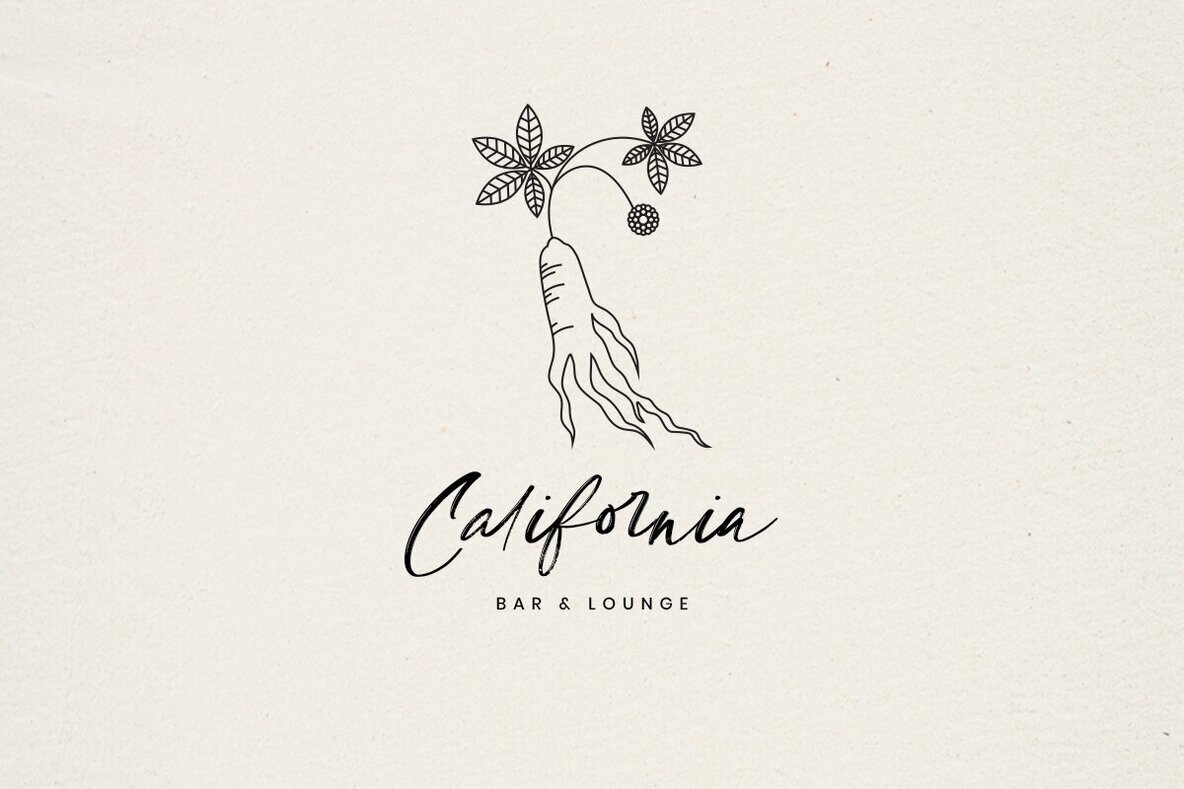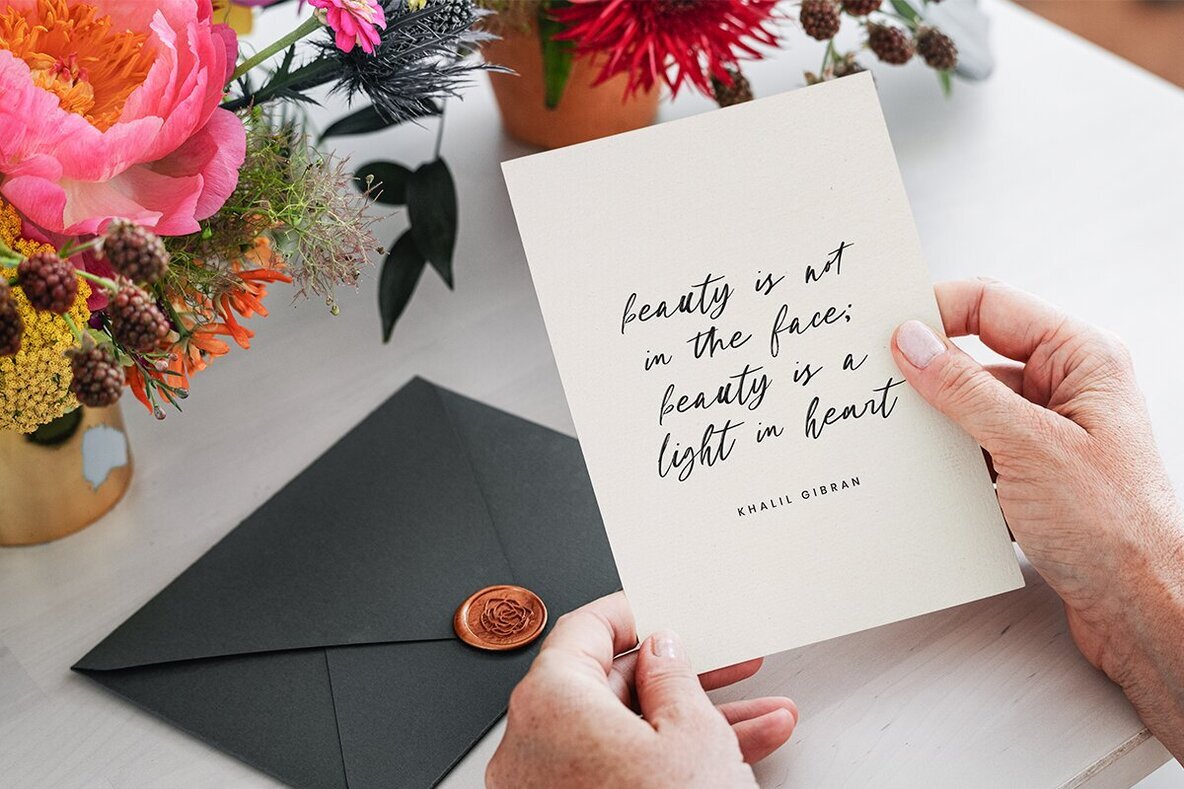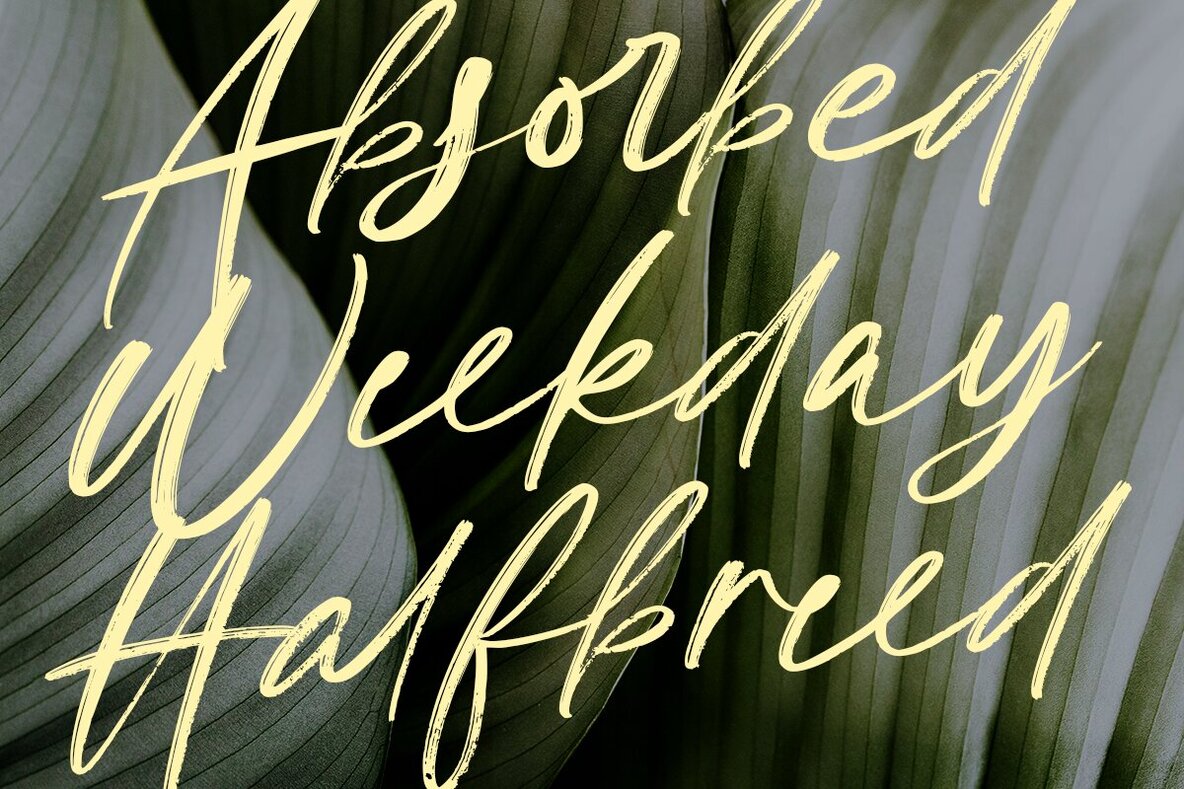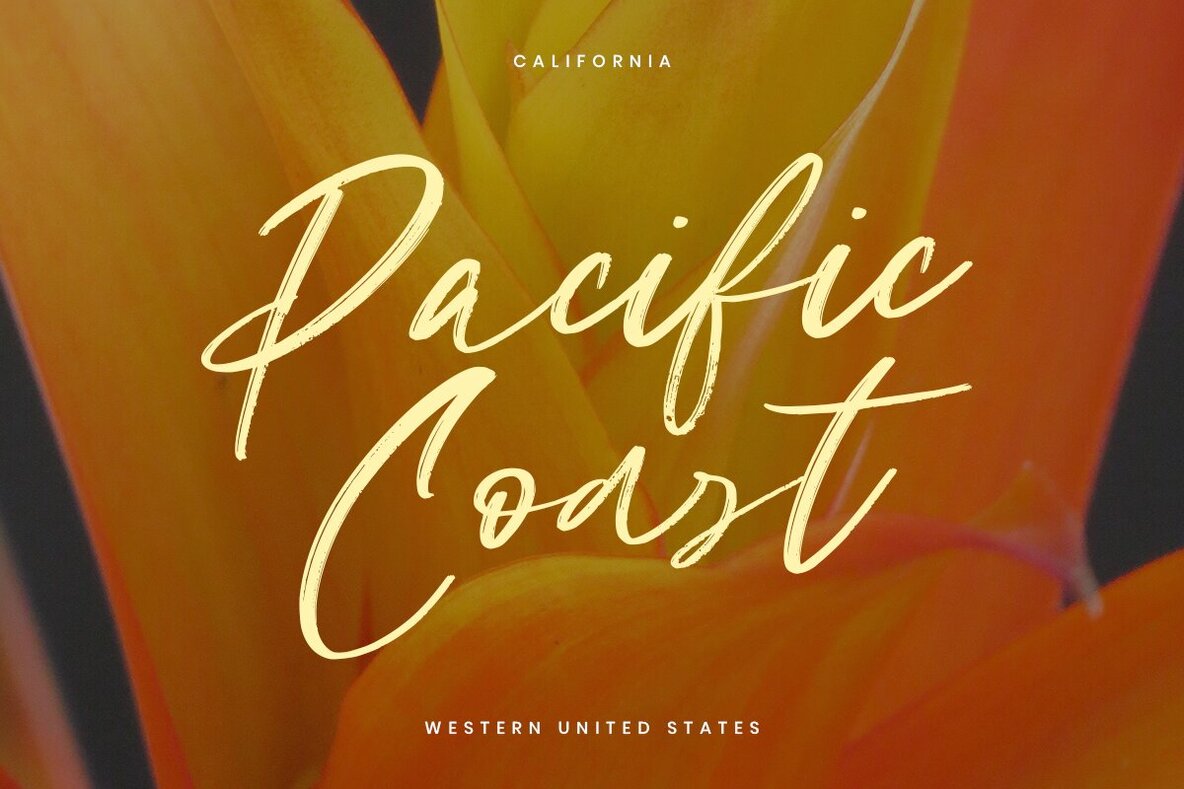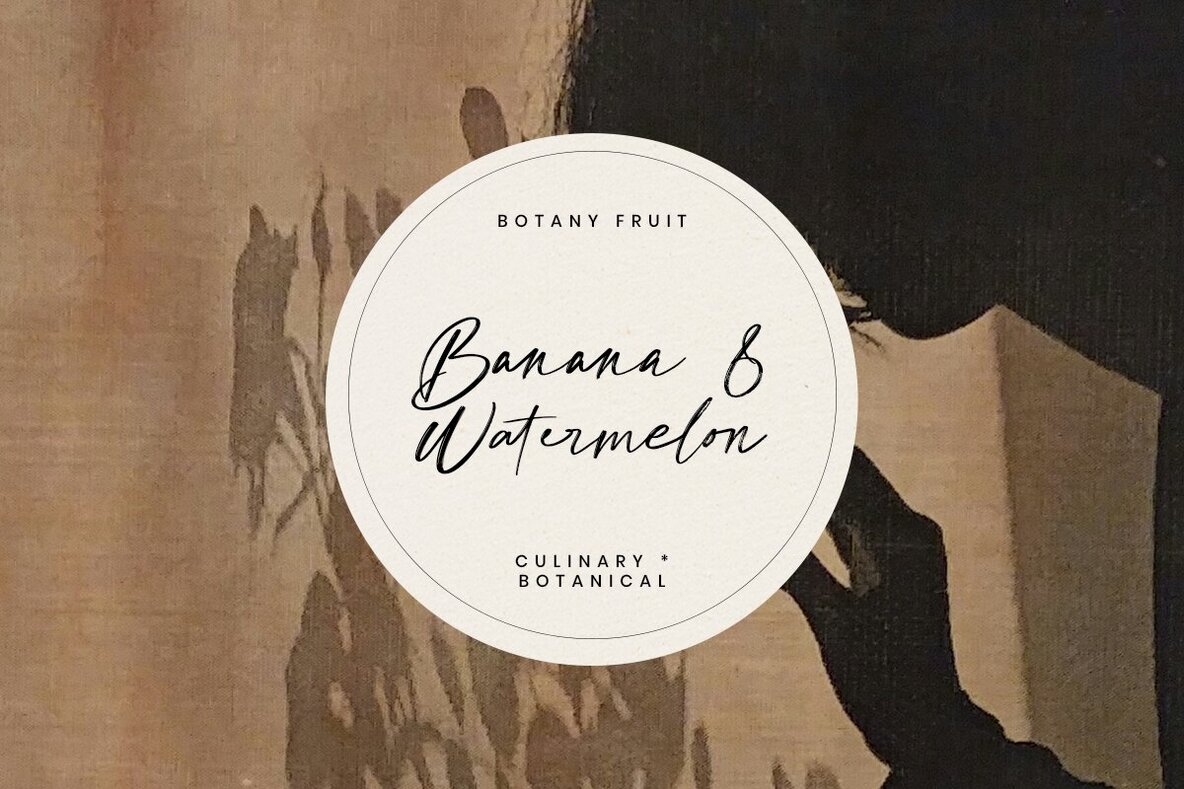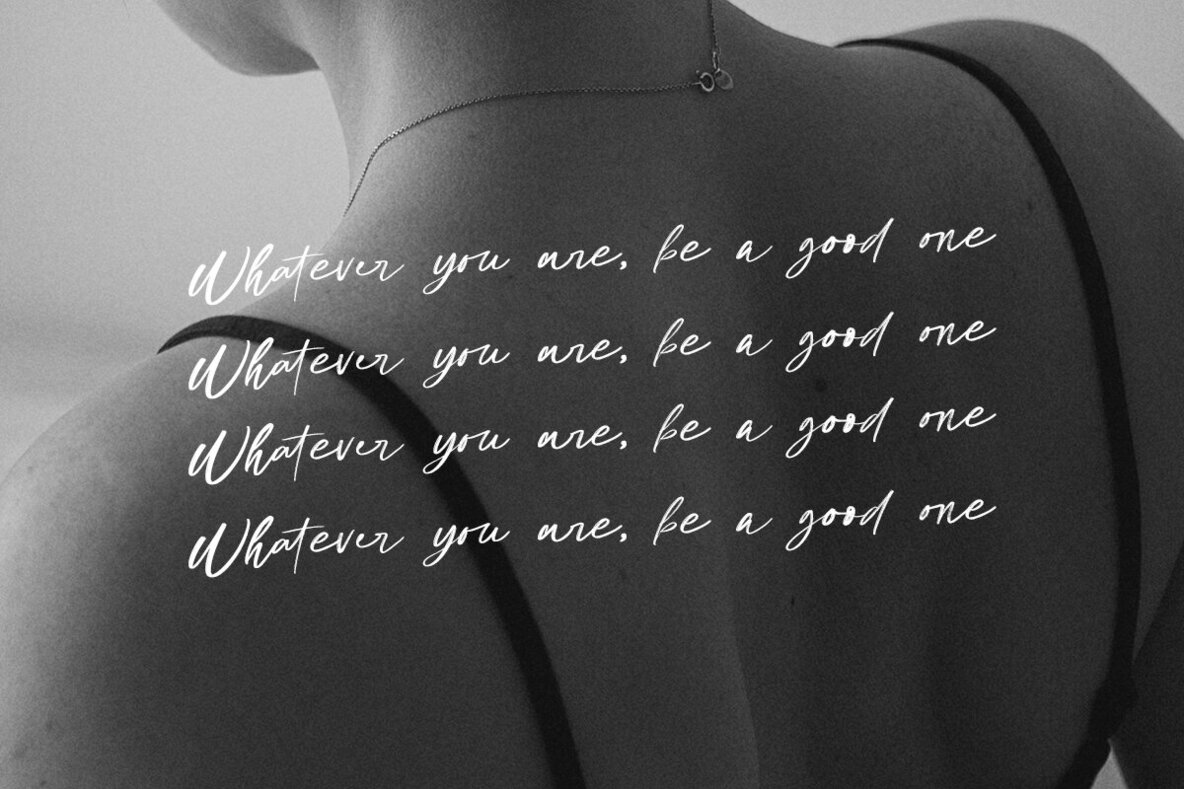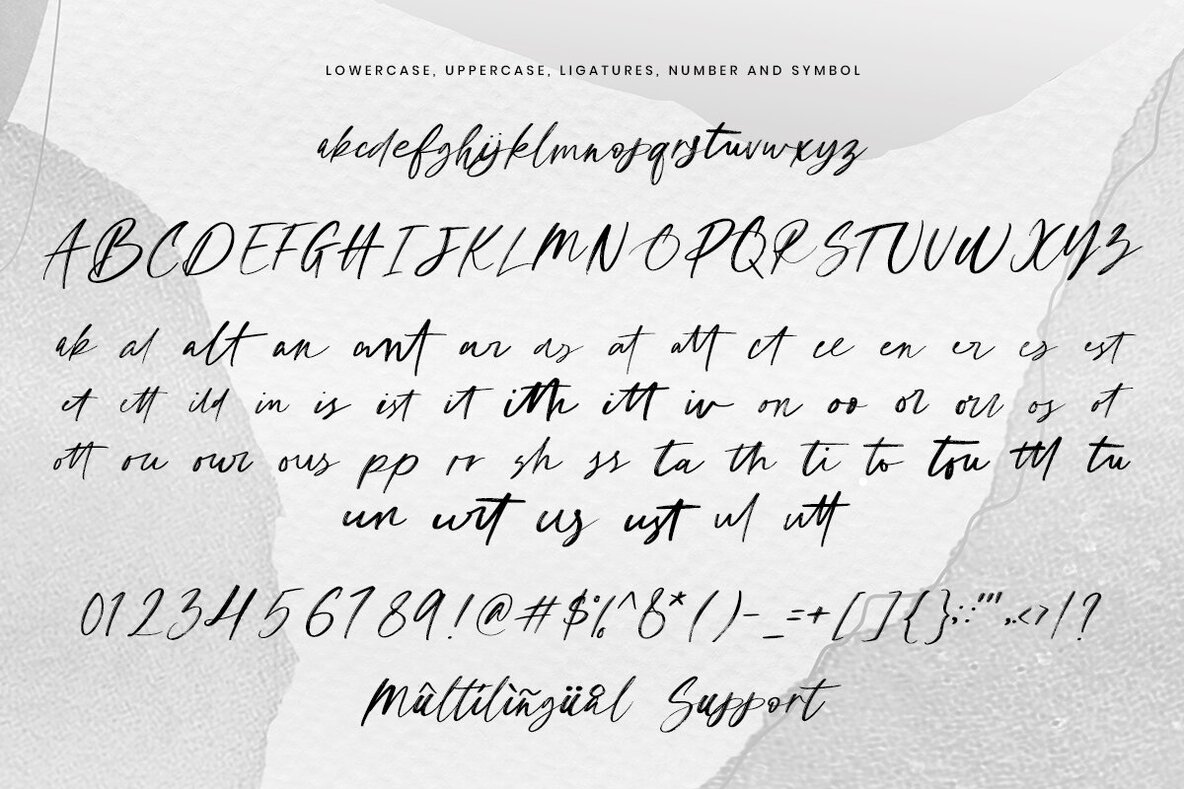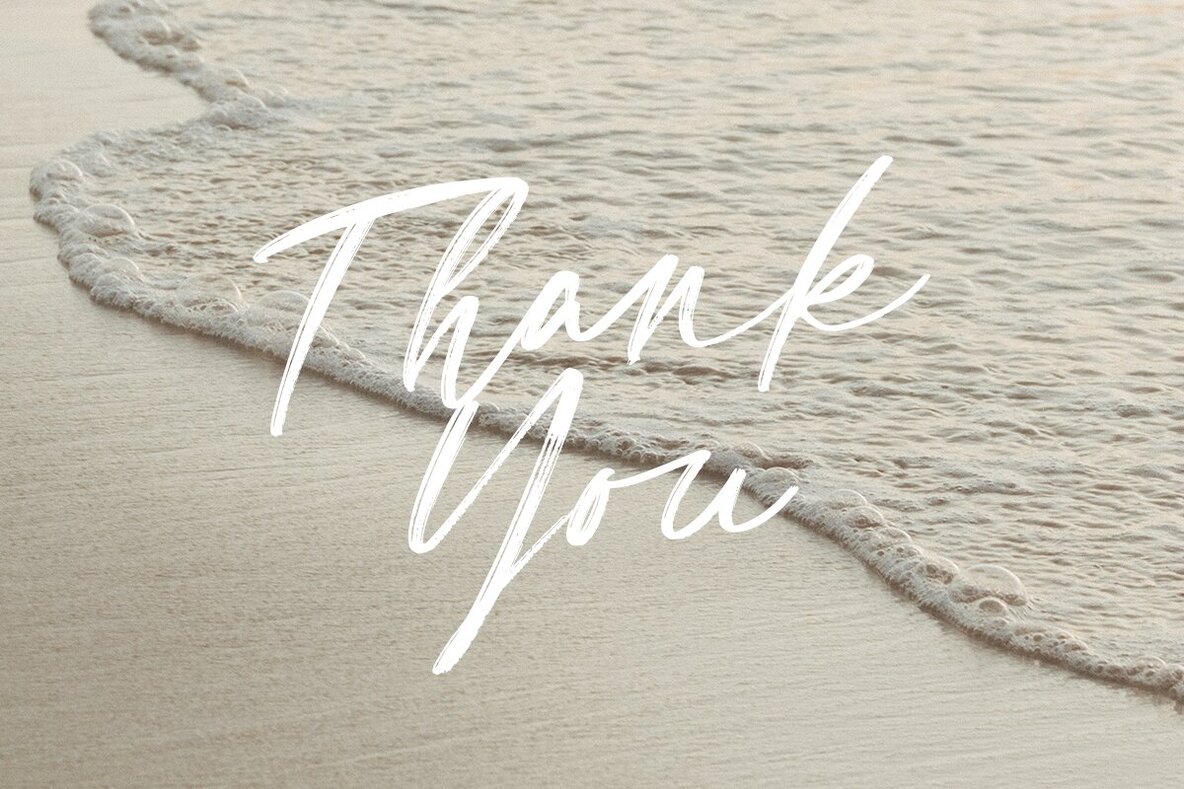
Odorless Font
Odorless Regular
Discover the charm of Odorless, an inky and imperfect handwriting script font designed to bring a uniquely handwritten feel to your projects. With 54 extra ligatures, this font enhances the authenticity of your handwritten designs as you type. Odorless is perfect for creating handwritten quotes, notes, labels, branding, or any project that benefits from a genuine handwritten touch.Odorless: Expressive Handwriting Script
Versatile Application